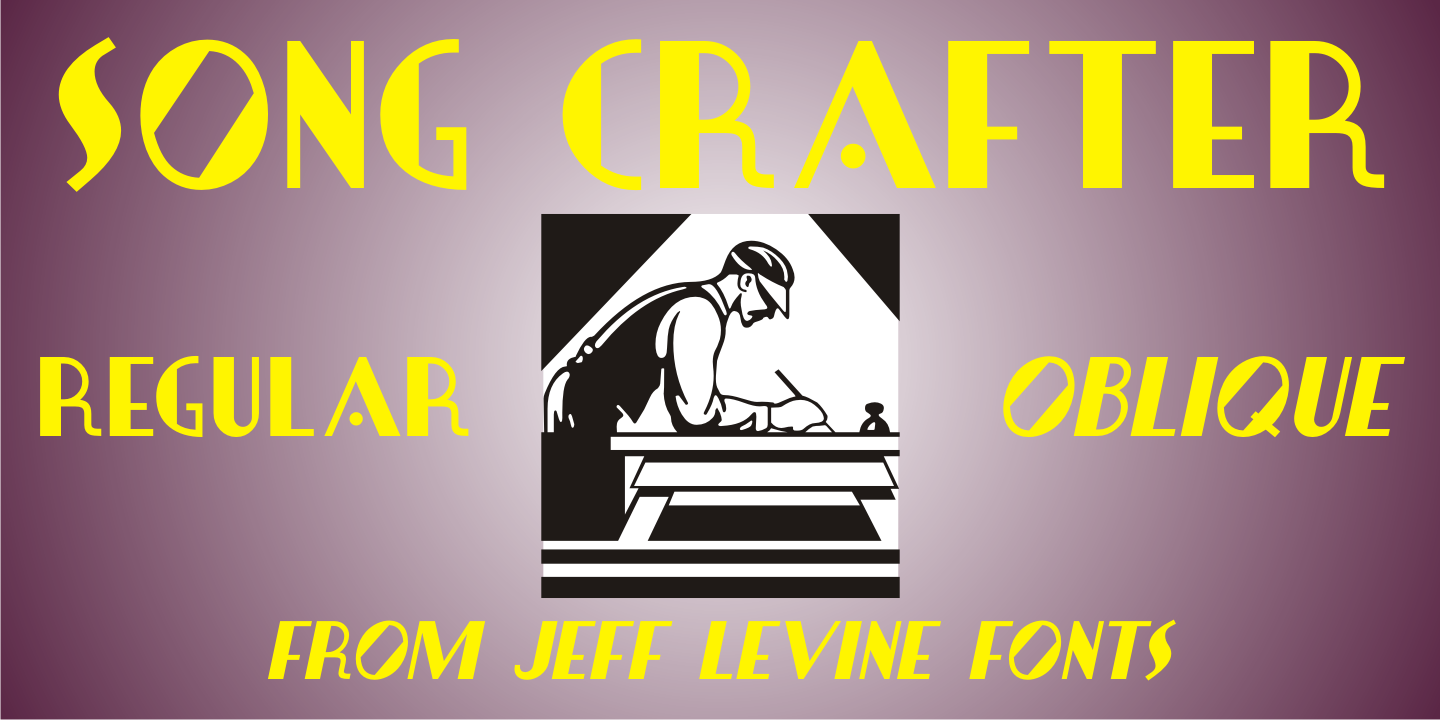
Song Crafter JNL Font is ideal for music album covers, vintage record labels, retro concert posters, jazz club signage, music festival branding, radio station logos, recording studio graphics, musician business cards, vinyl record packaging, and nostalgic entertainment designs.
Song Crafter JNL Font is exciting because it captures the golden age of American music typography with authentic vintage letterforms that evoke the classic era of jazz, swing, and early rock 'n' roll, perfect for projects that need to communicate musical heritage and timeless entertainment appeal.
The Song Crafter JNL Font family includes regular weight with complete character sets, vintage-inspired numerals, and period-appropriate punctuation marks, maintaining authentic 1940s-1950s music industry typography styling while ensuring modern usability and readability.
For music-related projects requiring authentic vintage character, Song Crafter JNL Font Free Download provides the perfect typographic solution for connecting with music history. This distinctive typeface combines classic American music industry aesthetics with contemporary design functionality, making it essential for musicians, record labels, and entertainment brands seeking to establish credibility through historical authenticity. The carefully crafted letterforms and period-correct styling make this font an excellent choice for any application where musical nostalgia and classic entertainment values are crucial for creating memorable brand experiences and connecting with music-loving audiences.